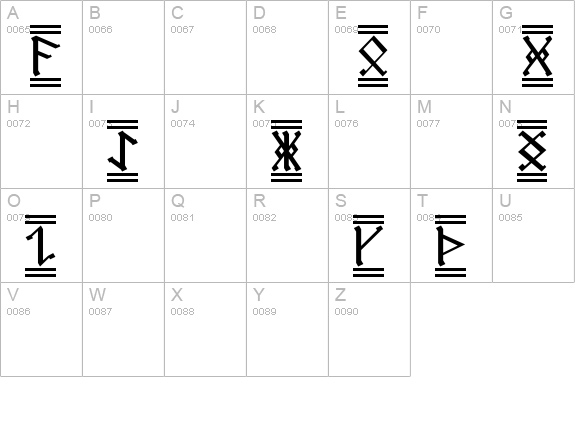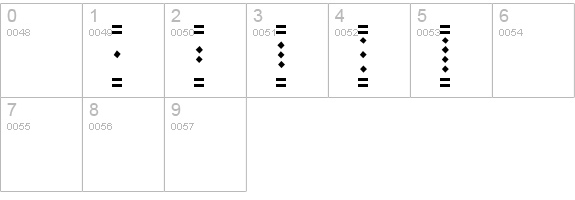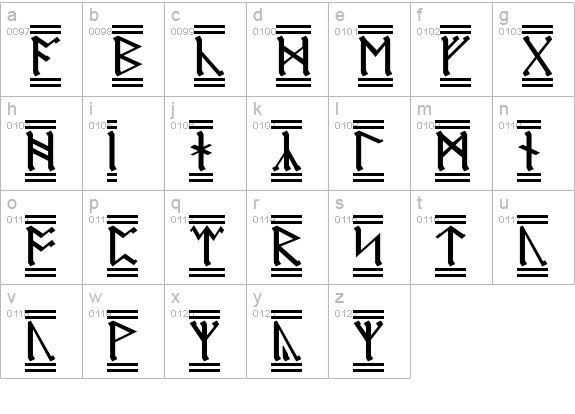
AngloSaxon Runes 2 Font Details
AngloSaxon Runes 2 font is a beautifully crafted typeface that pays homage to the ancient runic writing system used by the Anglo-Saxons. This font exudes a sense of history and mystique, making it perfect for projects that require a touch of the past. With its intricate and ornate design, AngloSaxon Runes 2 font is sure to captivate and intrigue viewers. Whether you are working on a historical document, a fantasy novel, or simply want to add an element of old-world charm to your designs, this font is a fantastic choice. What's even better is that AngloSaxon Runes 2 font is completely free to download at FontsMarket.com. You can easily add this unique and striking typeface to your collection without breaking the bank. So why wait? Download AngloSaxon Runes 2 font today and start creating stunning designs that are sure to stand out!